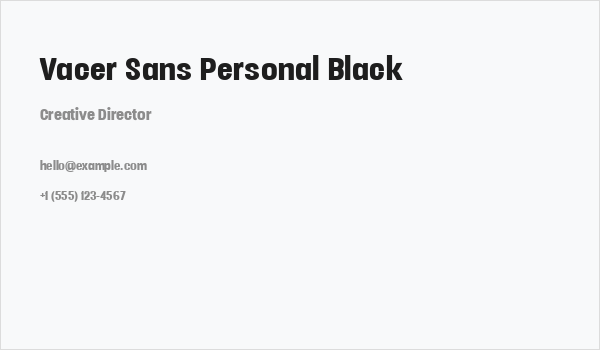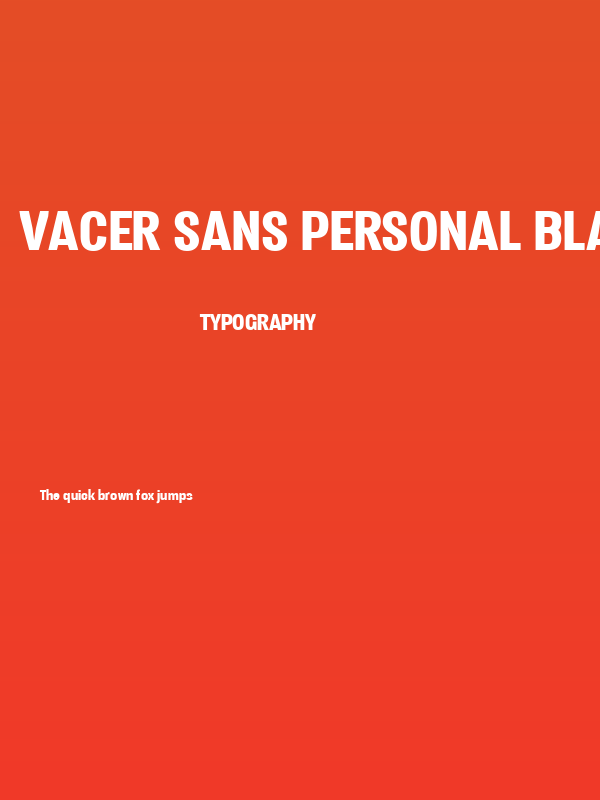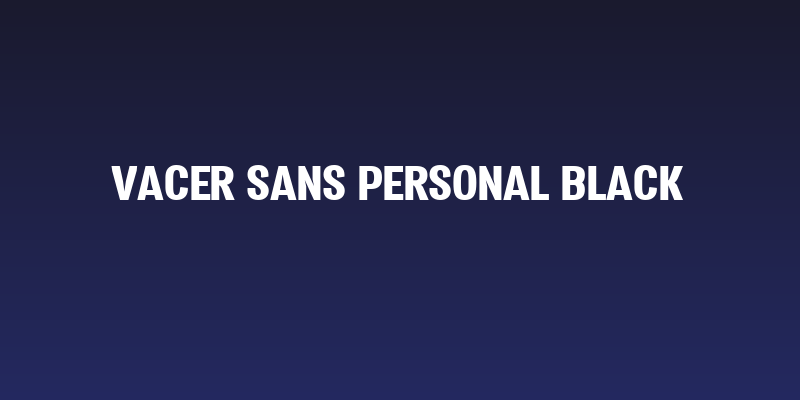
Vacer Sans Personal Black Font
Vacer Sans Personal Black Description
This font features a bold and impactful design with a strong presence, making it ideal for attention-grabbing headlines and statements. The characters are uniformly thick, providing a consistent and powerful look. The uppercase and lowercase letters are well-proportioned, ensuring readability even at smaller sizes. The numerals are clear and distinct, complementing the overall robust style. Special characters are included, maintaining the bold aesthetic throughout. This font's modern and clean appearance makes it versatile for various design projects.
| Proposed Projects | Ideal for branding, advertising, posters, and any project requiring a strong visual impact. |